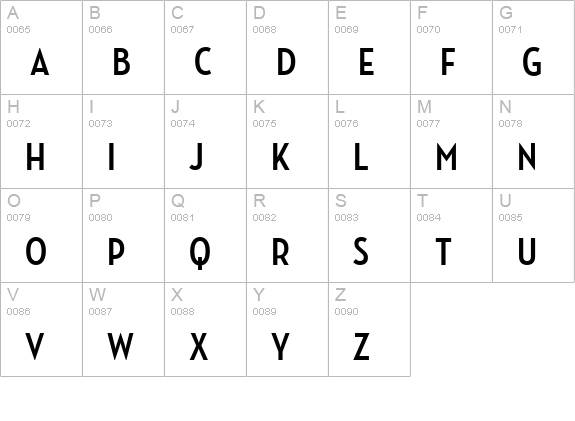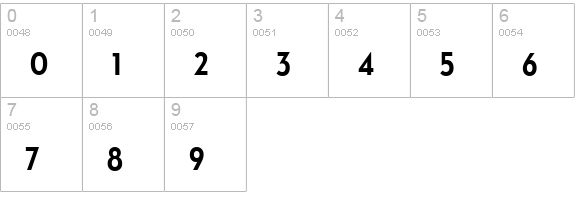
NeutrafaceCondensedPS-Bold is a strong, high-contrast variant in the NeutrafaceCondensedPS typeface family \xE2\x80\x94 well suited to headlines, attention-grabbing titles, and strong calls-to-action.
NeutrafaceCondensedPS-Bold is a modern and sleek typeface that exudes confidence and sophistication. Its bold weight commands attention while maintaining a sense of elegance and clarity. The condensed style of this font makes it perfect for headlines, logos, and branding materials where space is limited but impact is crucial. Best of all, NeutrafaceCondensedPS-Bold is freely available to download at FontsMarket.com. This means you can easily access this premium font for your design projects without any cost. Whether you're working on a professional website, a sleek magazine layout, or eye-catching packaging, NeutrafaceCondensedPS-Bold is sure to elevate your designs with its clean lines and contemporary appeal. Download this font today and add a touch of modern sophistication to your projects.